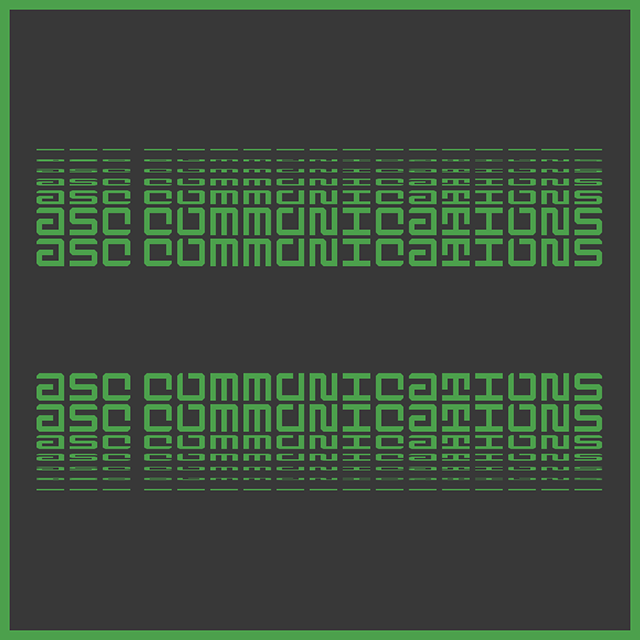
Avant-garde for the time and even today it looks futuristic rather than simply 'space-age'. I actually thought the lines in your sample were bouncing but on closer view they look more like being wrapped around a cylinder. Love it; instant 10/10